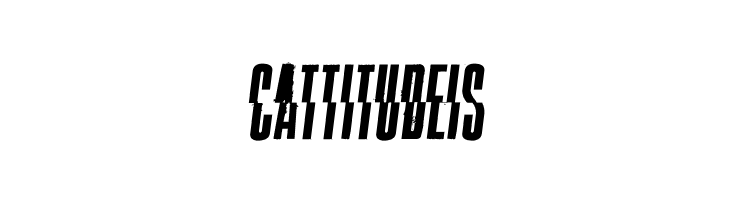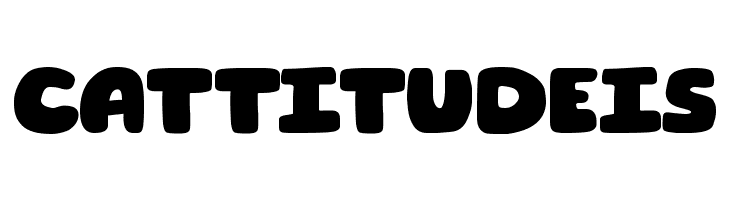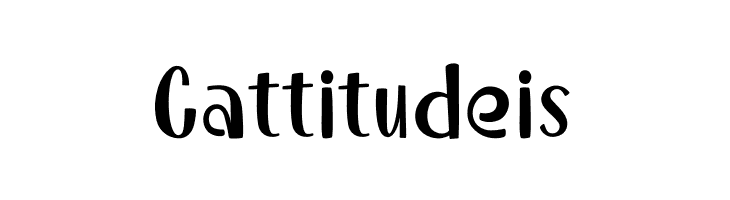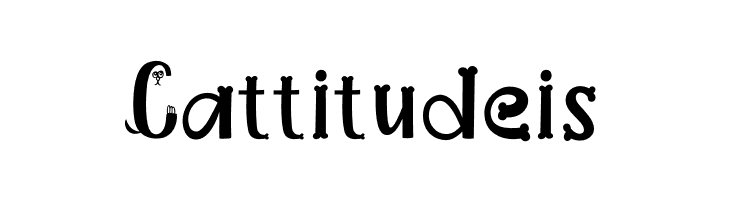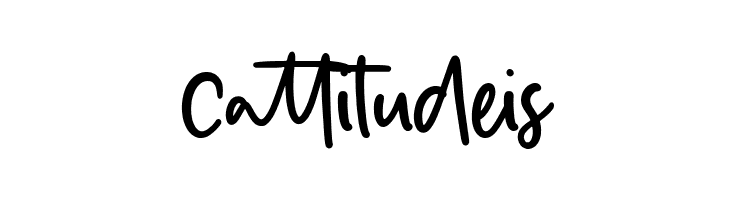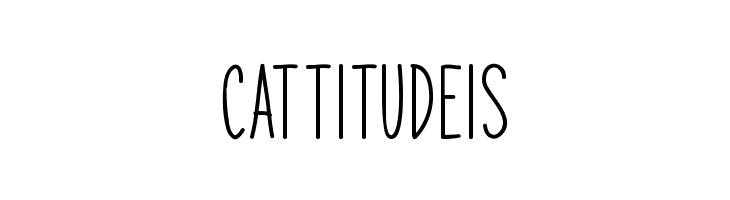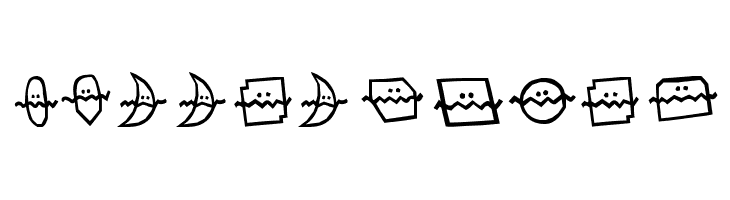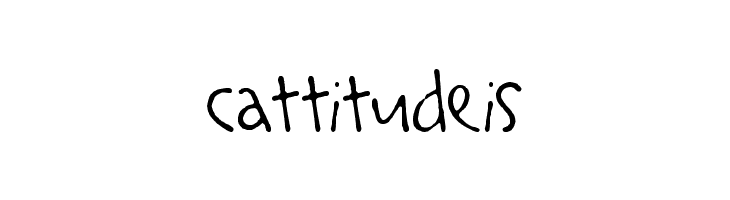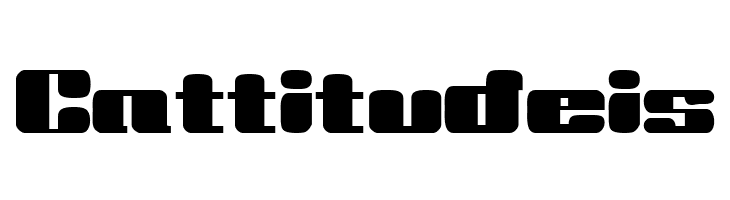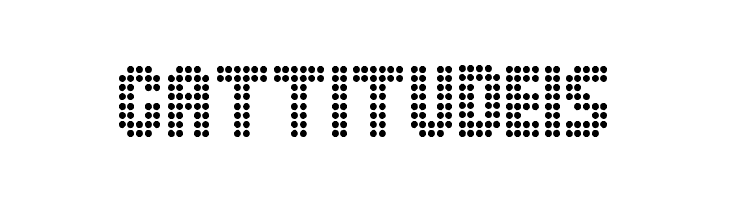
( Fonts by Darcy Baldwin )
A playful, bold font with characters enclosed in black circles, offering a unique and decorative style.
( Fonts by Darcy Baldwin {fontography} )
A playful, eclectic font with a ransom note style, featuring diverse and decorative characters.
( Fonts by Darcy Baldwin )
A playful, eclectic font mimicking cut-out letters, ideal for quirky designs.
( Fonts by Darcy Baldwin )
A playful, eclectic font resembling a collage of magazine clippings.
( Fonts by Darcy Baldwin {fontography} )
A playful, eclectic font with a mix of bold, outlined, and decorative characters.
A whimsical, curly font with playful loops and flourishes.
( DJB Fonts - Darcy Baldwin - darcybaldwin.com )
A playful sans-serif font with characters enclosed in circles, ideal for creative projects.
( DJB Fonts - Darcy Baldwin - darcybaldwin.com )
A playful font with bold, rounded characters enclosed in circles, perfect for creative projects.
( DJB Fonts - Darcy Baldwin - darcybaldwin.com )
A playful font with characters enclosed in ovals, offering a clean and modern look.
( DJB Fonts - Darcy Baldwin - darcybaldwin.com )
A playful font with characters enclosed in ovals, reminiscent of test answer sheets.
( Fonts by Darcy Baldwin {fontography} )
A bold, sans-serif font with a modern, clean, and structured appearance.
( Fonts by Darcy Baldwin {fontography} )
A bold, geometric font with characters enclosed in squares, offering a modern and structured appearance.
( Fonts by Darcy Baldwin {fontography} )
A bold, modern sans-serif font with clean lines and excellent readability.
( Fonts by www.movefont .com )
A playful, bold, handwritten-style font with a whimsical feel.
( Fonts by www.movefont .com )
A whimsical, playful font with cartoonish dog face embellishments.
A playful, handwritten font with tall, narrow letters and rounded edges.
( Fonts by Joseph Dawson )
A playful, bold font with rounded, chunky letters perfect for fun and whimsical designs.
A playful, handwritten font with a casual and informal style.
A dot matrix style font with a retro digital display aesthetic.
( Fonts by Southype )
A bold, playful font with a two-tone color scheme and retro digital display style.
A bold, angular font inspired by ancient runic scripts, ideal for fantasy themes.
( Xerographer Fonts - Max Infeld - xerographer.blogspot.com )
A bold, playful font with a distressed, hand-crafted appearance.
A playful, casual handwritten font with smooth, flowing lines.
A bold, modern font with rounded edges and geometric structure.
A bold, modern font with rounded edges and a geometric structure.